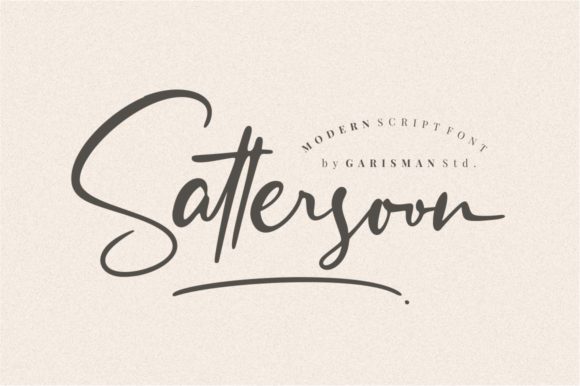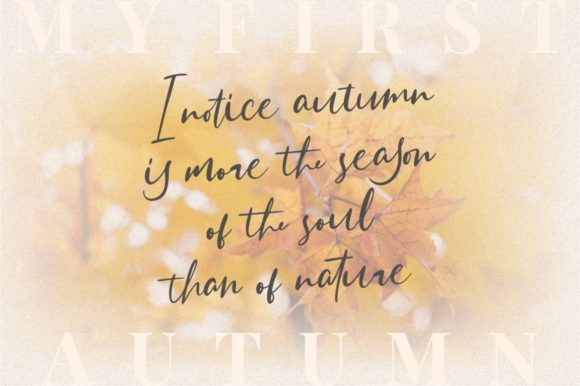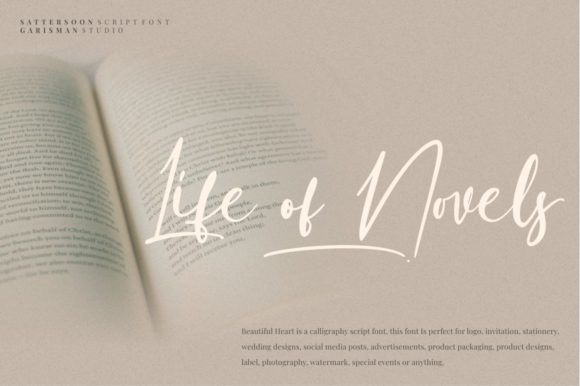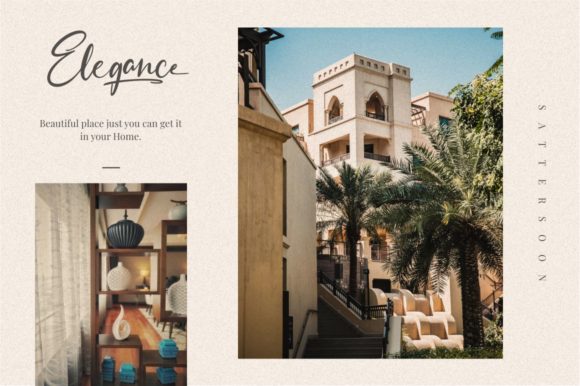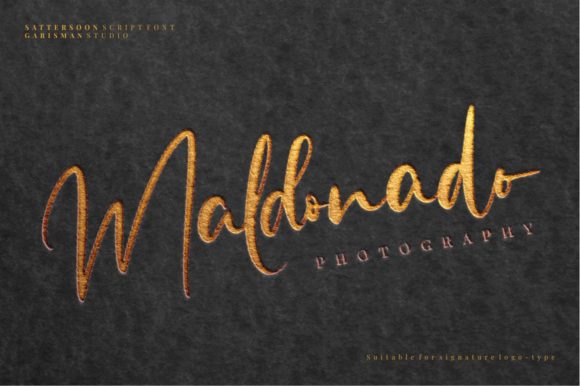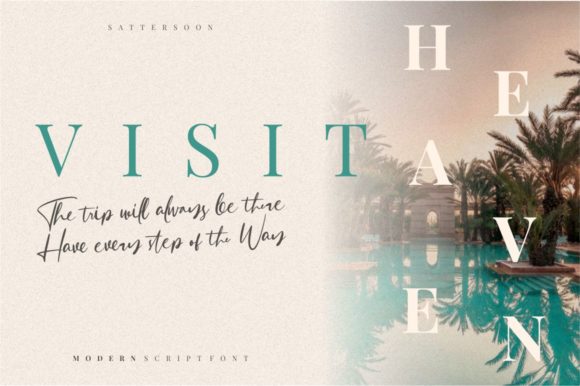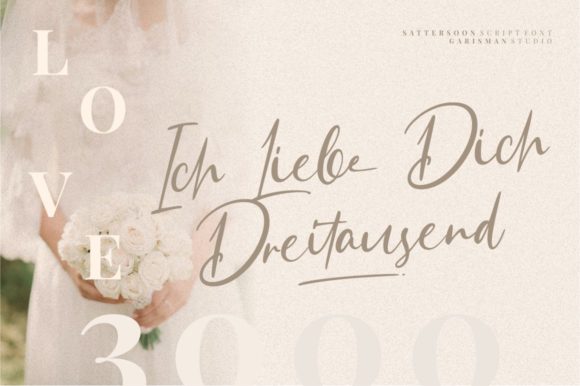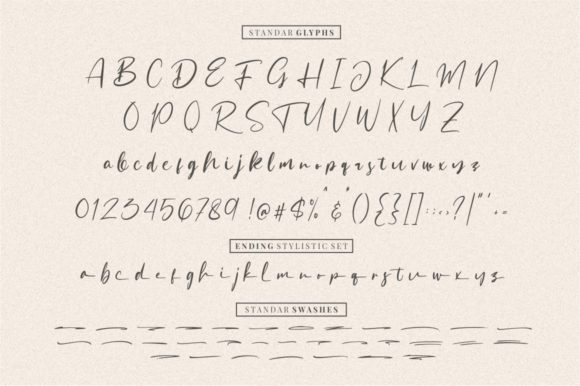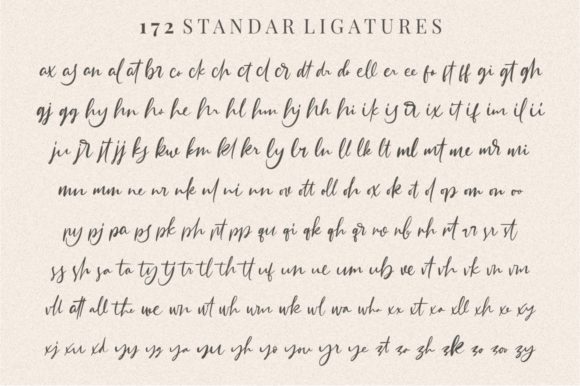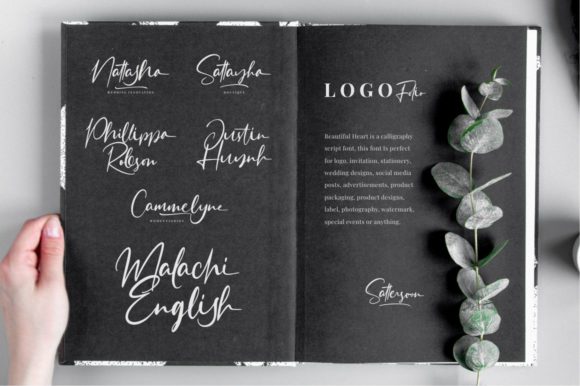
Sattersoon Font
About Sattersoon Font
Sattersoon is a naturally modern script with the beautiful end swashes and more than 170 ligatures. It’s the perfect font for giving you project a luxurious feel.